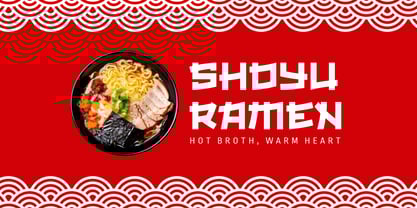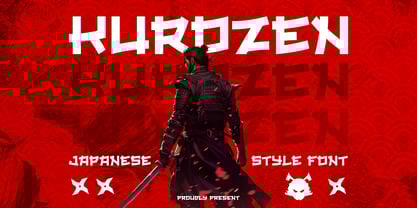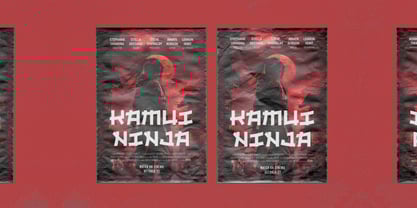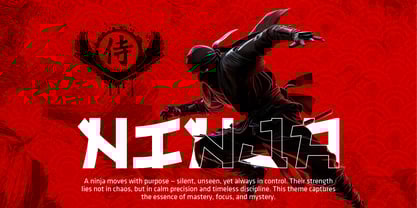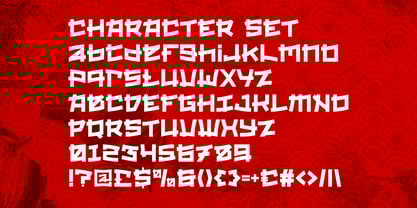
Kurozen
by Shanaf
The Kurozen Font Family was designed by Yesie Erma Yunita and published by Shanaf. Kurozen contains 1 styles.
Kurozen Japanese Style Font brings a sharp and expressive design inspired by traditional eastern forms. Each letter carries bold strokes, angled cuts, and dynamic edges that echo martial precision. The shapes feel strong and confident, with wide structures and high visual energy. The font stands on thick builds and dramatic silhouettes, giving every word a striking presence. The rhythm of its forms delivers movement, strength, and attitude. Kurozen Japanese Style Font suits projects that need an intense look with clear character and cultural depth. This font fits many needs across visual branding. The sculpted strokes support logo design, poster titles, bold headlines, and expressive editorial layouts. Movie titles gain intensity from its unique proportions. Packaging gains edge through its strong shapes. Signage gains clarity through its solid construction. The font works well in promotions, advertising, stickers, business graphics, and themed merchandise. It also serves creative work for foreign-look styles, samurai concepts, gaming content, and Japanese-inspired storytelling. Designers seeking dramatic and authentic tone will find its forms ideal for impactful identity design.